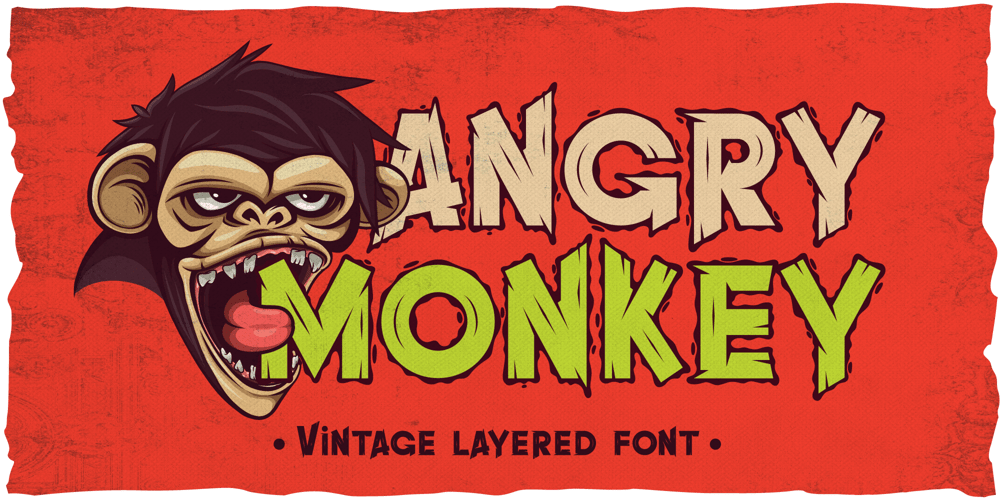
Angry Monkey Font Family was designed by Evgeny Dneprovsky and published by Fractal Font Factory. Angry Monkey contains 5 styles and family package options. Angry Monkey is a vintage layered font. Contains 5 typography styles, uppercase and lowercase letters, and basic punctuation for each style. Well suited for headings, corporate identity, as well as the creation of various printed and digital products.The font is designed in the playful style of an angry monkey. The archive contains a bonus accompanying graphics for the design of T-shirts and other products.